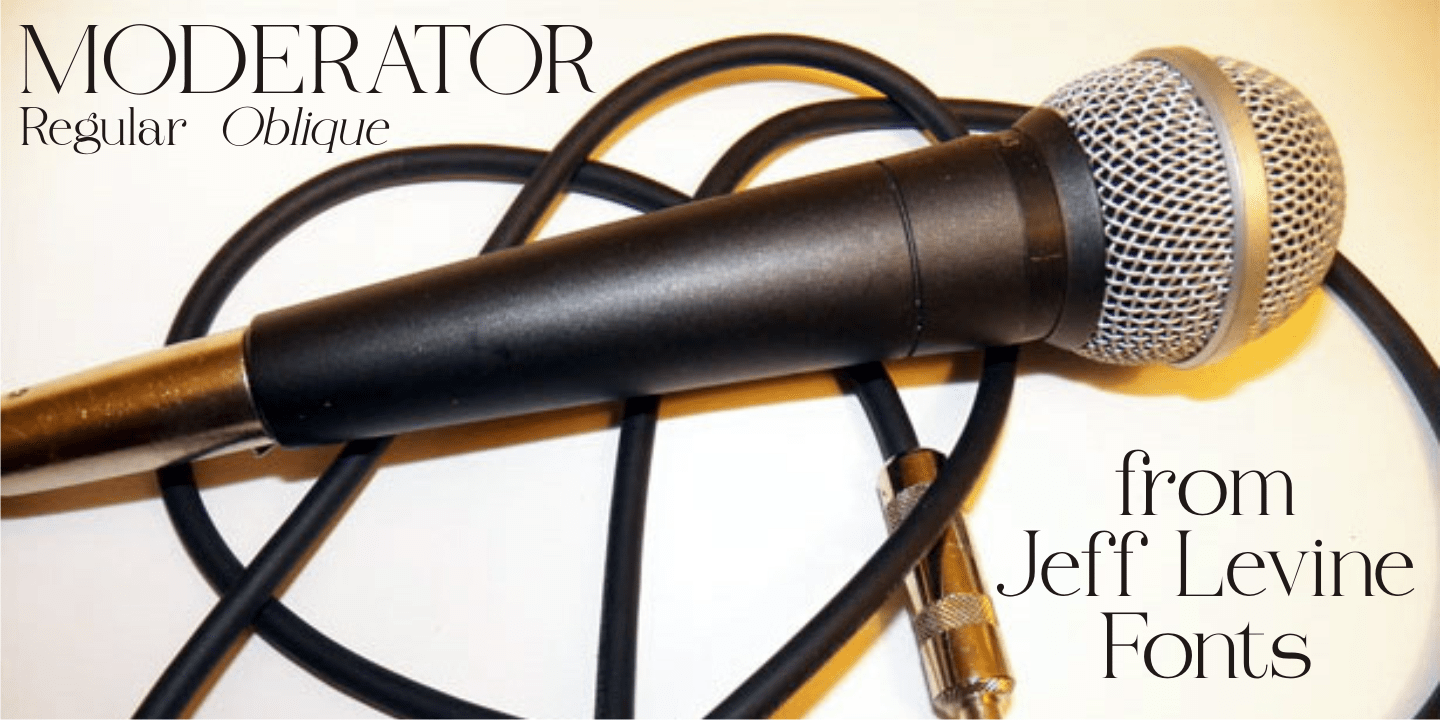
Moderator
Moderator JNL is a casual, light weight serif font that is perfect for headlines, short blurbs or display text. The font is available in both regular and oblique versions.
Moderator JNL Regular by Jeff Levine Fonts